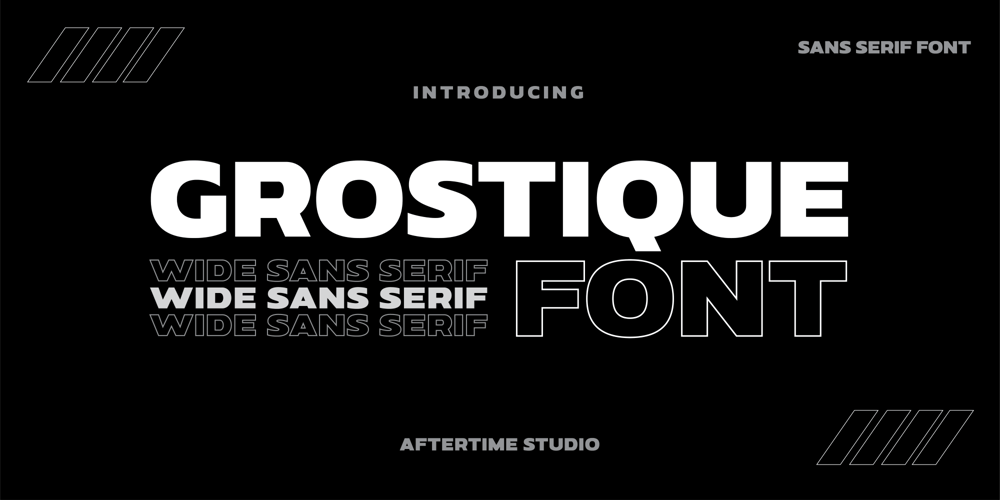
Grostique
Grostique font
Grostique Font Family was designed by Moh. Nor Miftahul Huda and published by Aftertime Studio. Grostique contains 1 styles and family package options. Grostique is a bold and solemn sans serif font, perfectly suitable for daring projects that need an outstanding appearance. It works best on streetwear designs, logo branding, editorial designs, music posters, modern advertising campaigns, and many more.